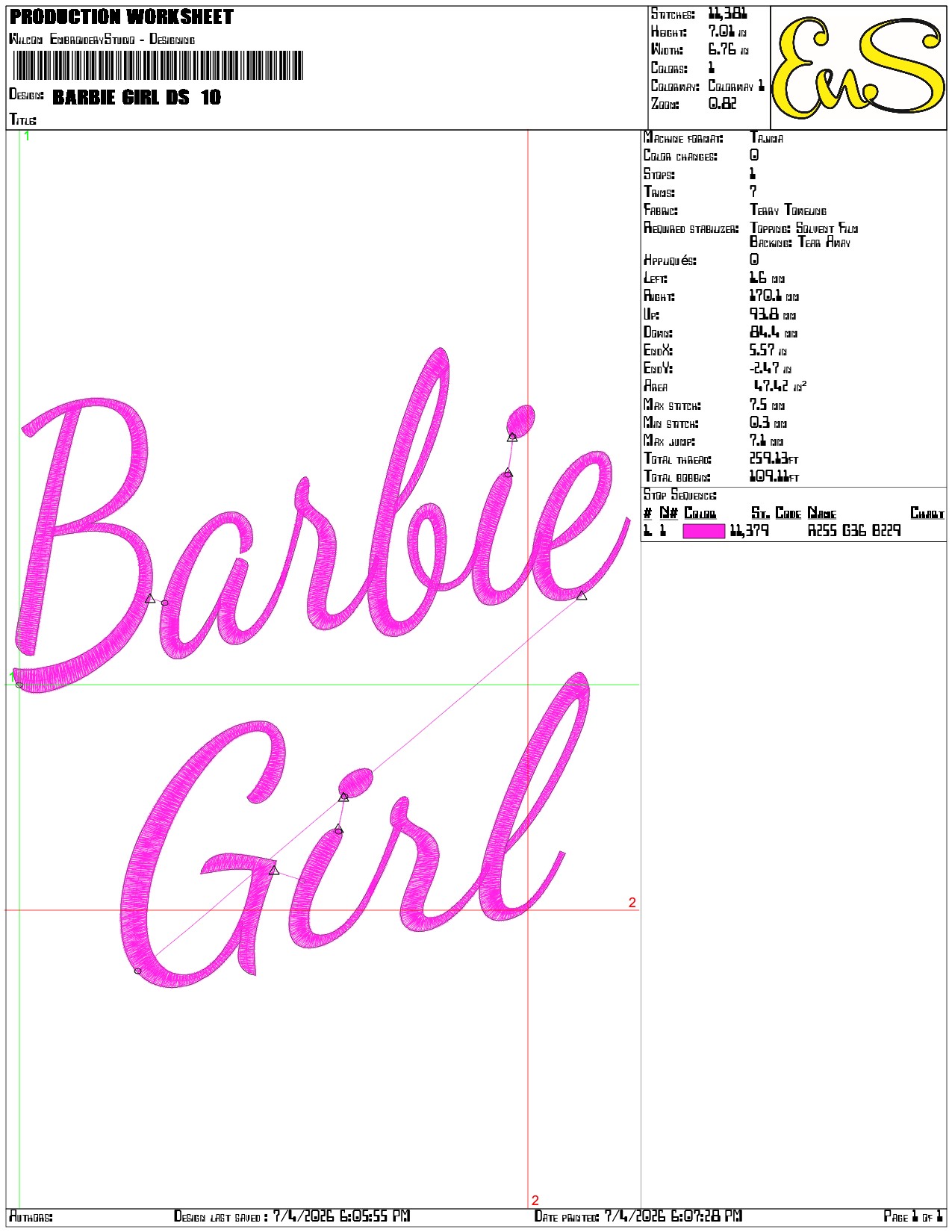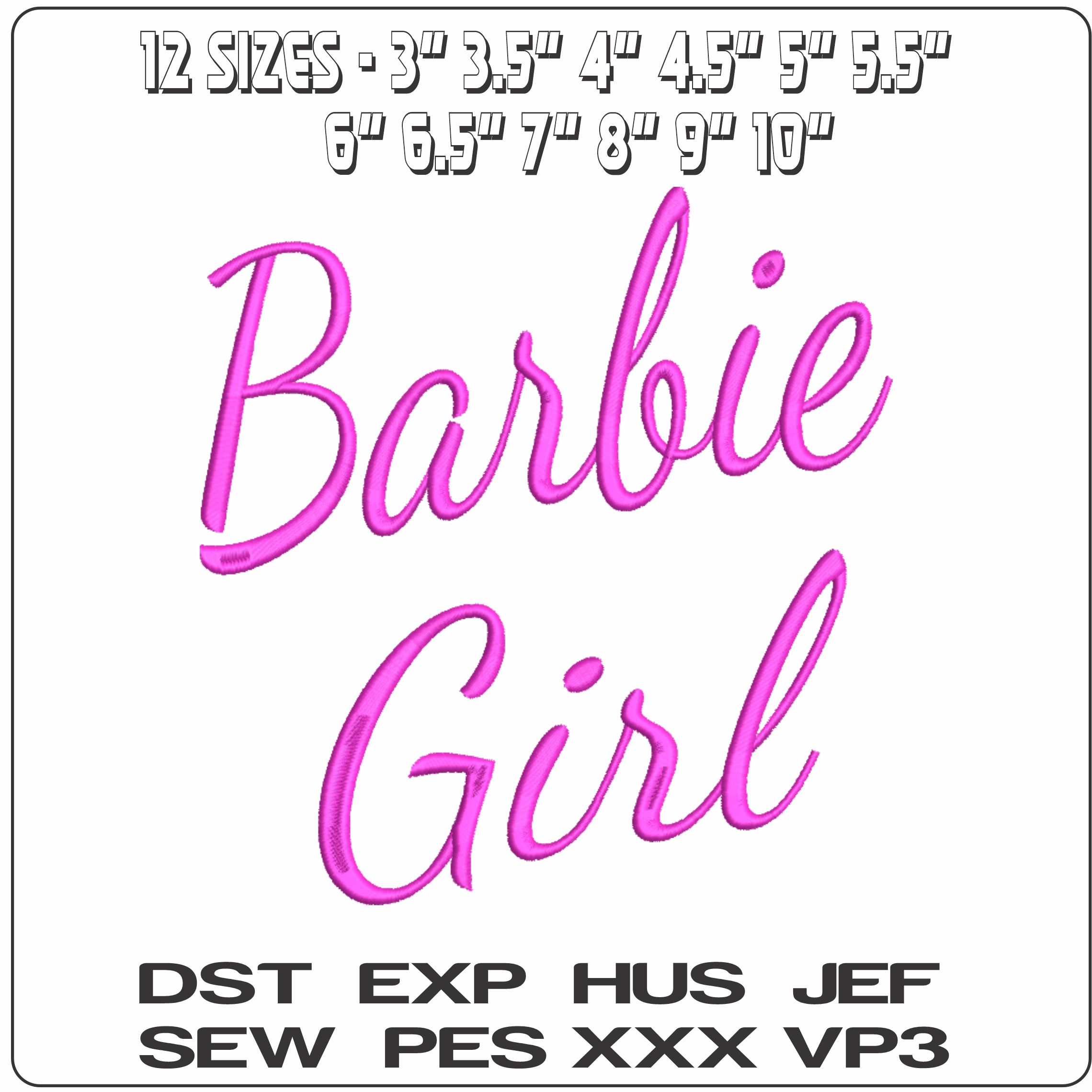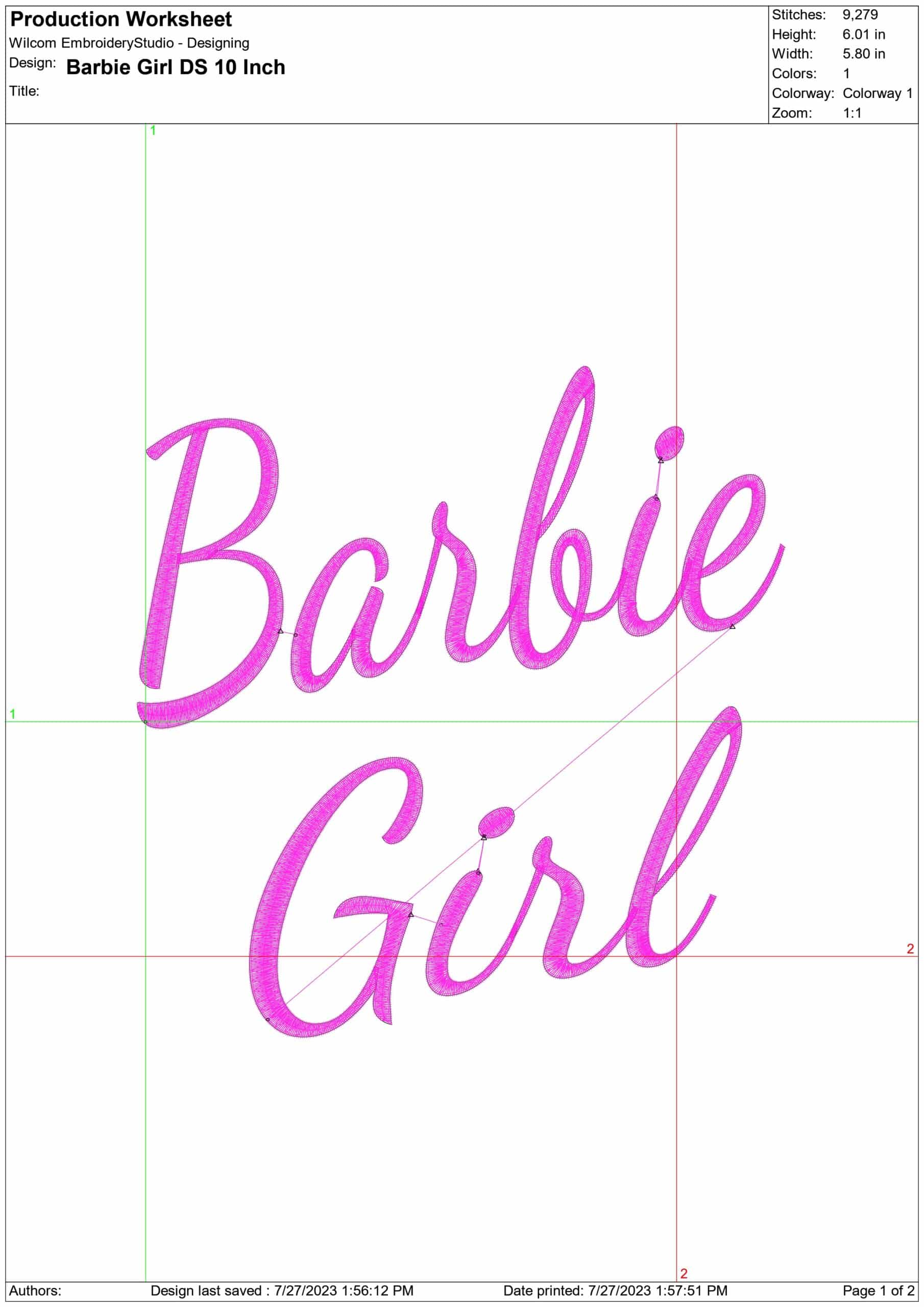
Pink Barbie Girl script in a light, open stitch that adds a playful logo-style finish to sweatshirts, totes and bedroom décor.
Bring playful pink to a sweatshirt or tote with this Barbie Girl text design, stitched in a modern cursive script and arranged across two stacked lines inside a frame. The lettering has that familiar logo-style sweep, with the soft pink thread keeping the look sweet rather than busy. It suits children’s makes, girly accessories and fun custom pieces for anyone who wants the words themselves to be the feature.
Because it uses a single thread colour and an open, lightly stitched style, it sits neatly on cotton jersey, hoodies, denim jackets and canvas bags without looking heavy. The clean script reads well on notebook covers, pyjama bags and bedroom items where you want a bold name-style statement without lots of extra detail. With sizes running from small to statement, it can work as a subtle chest placement or a larger centred design.